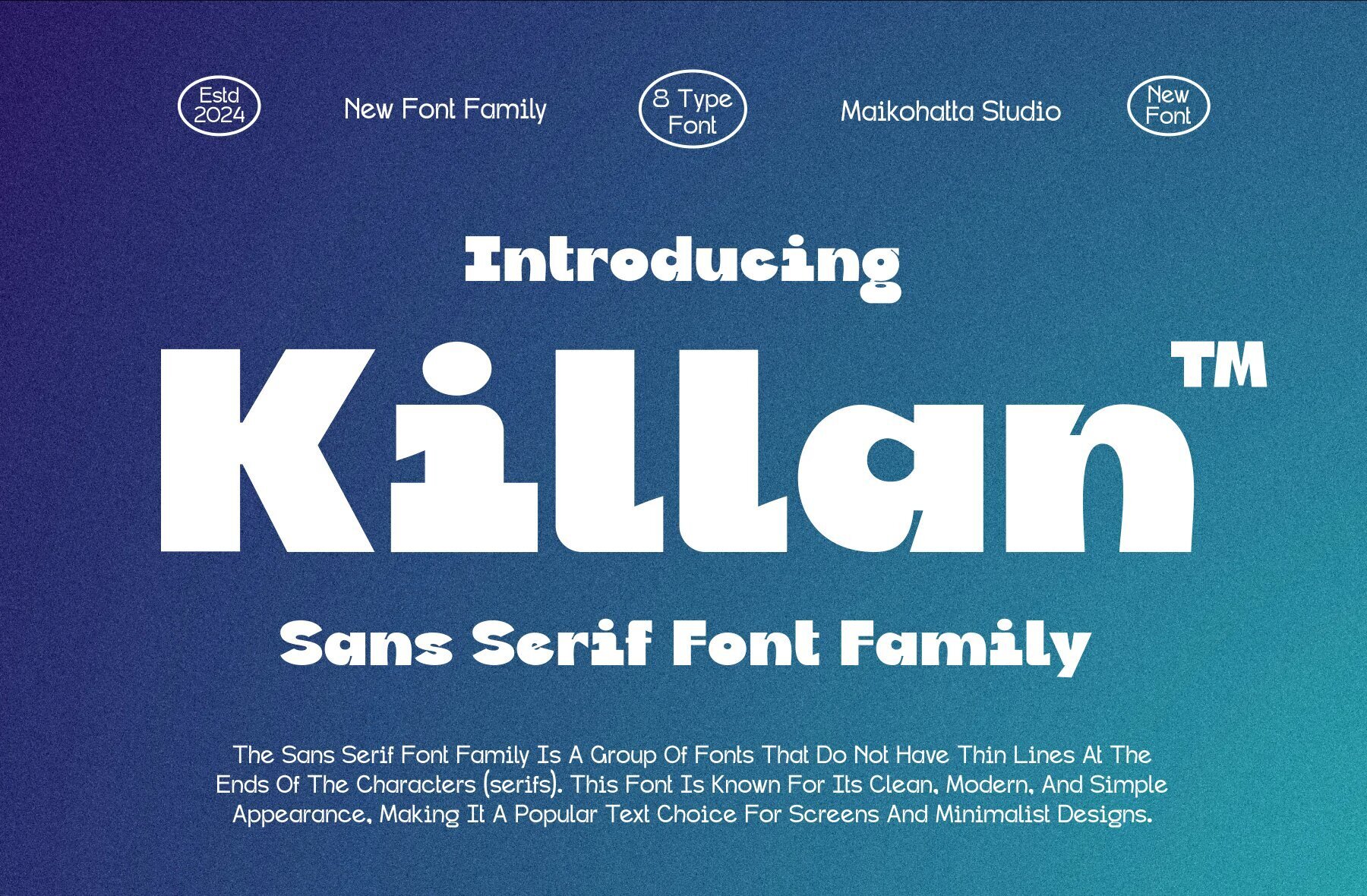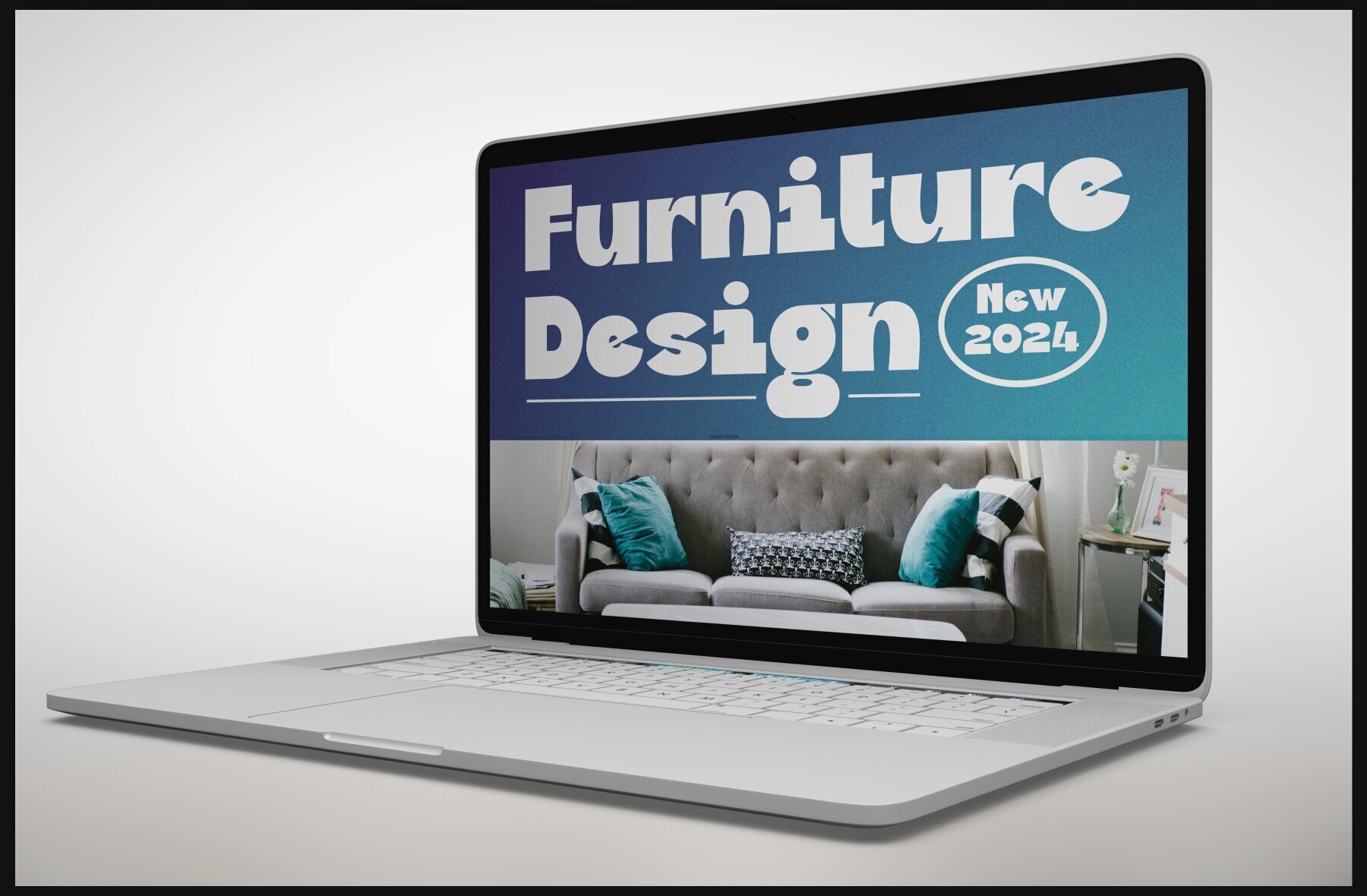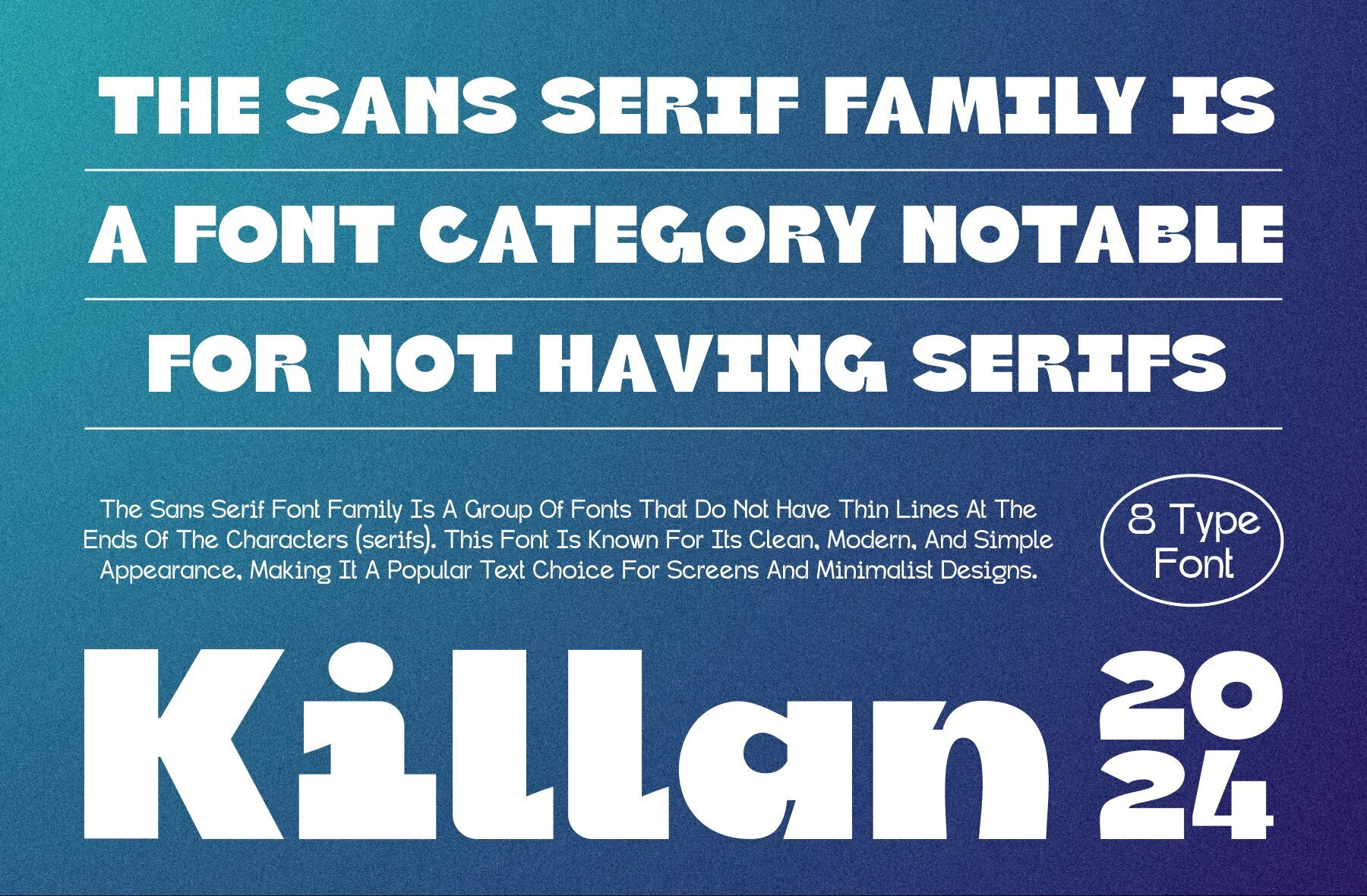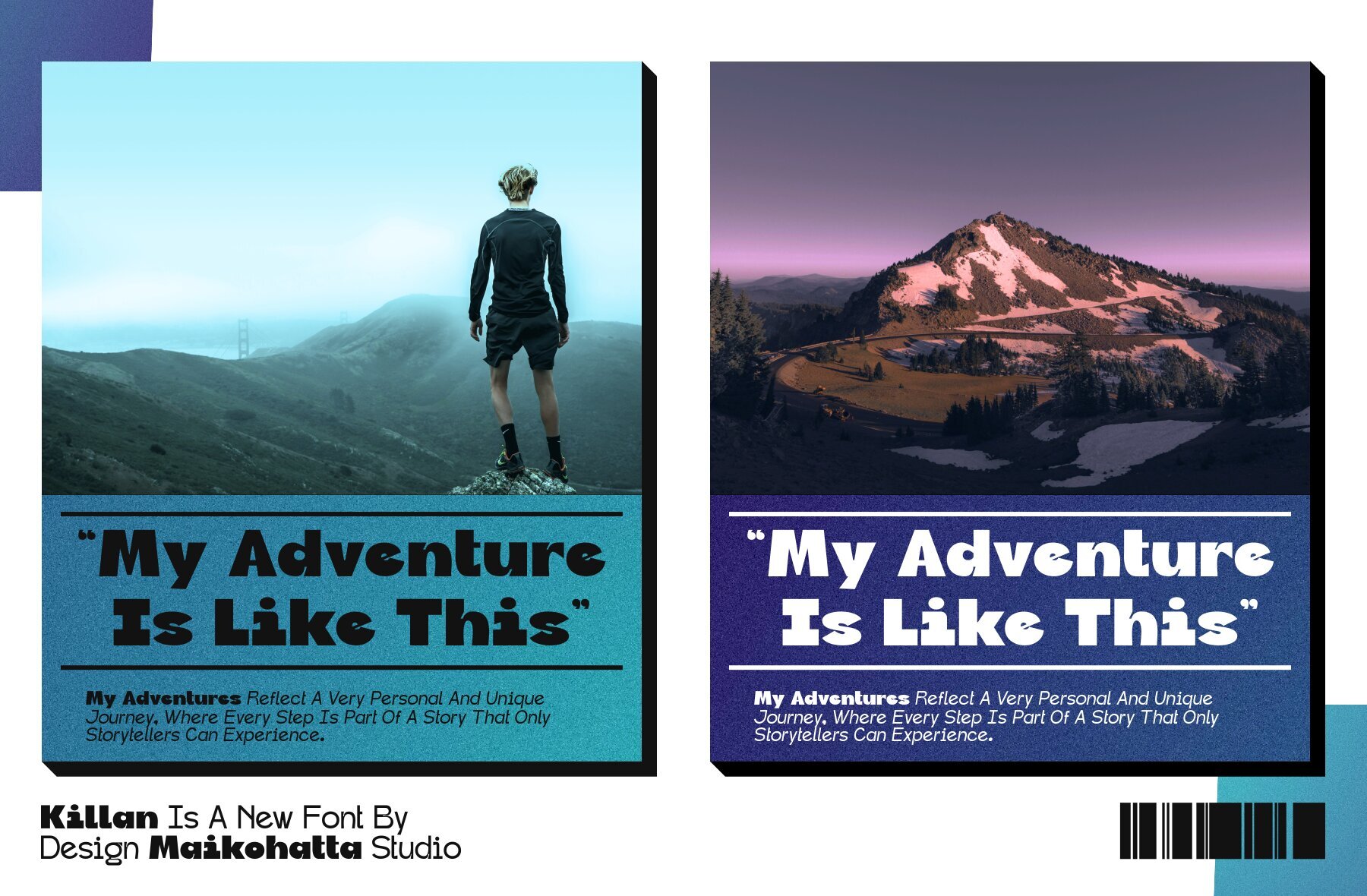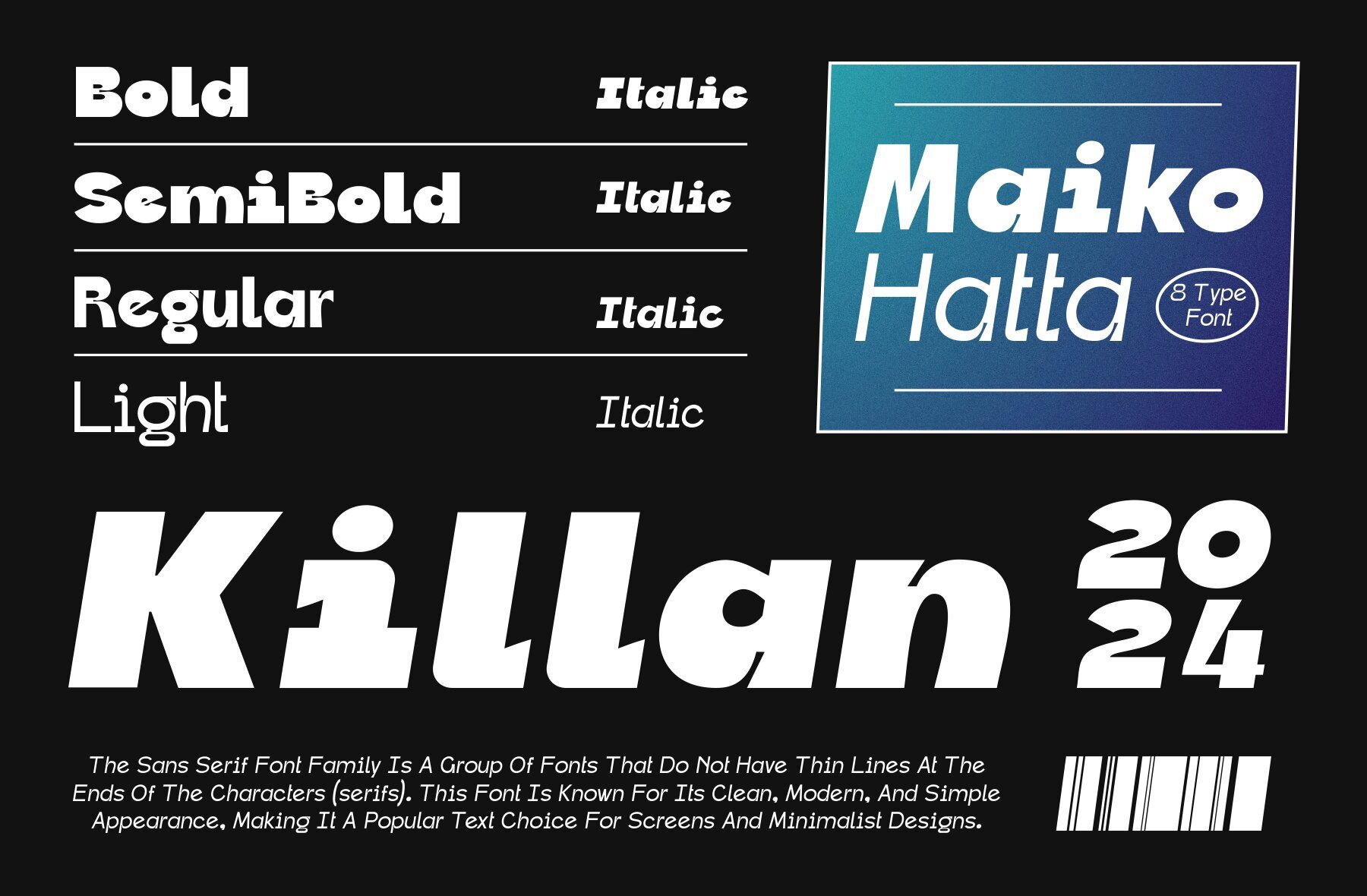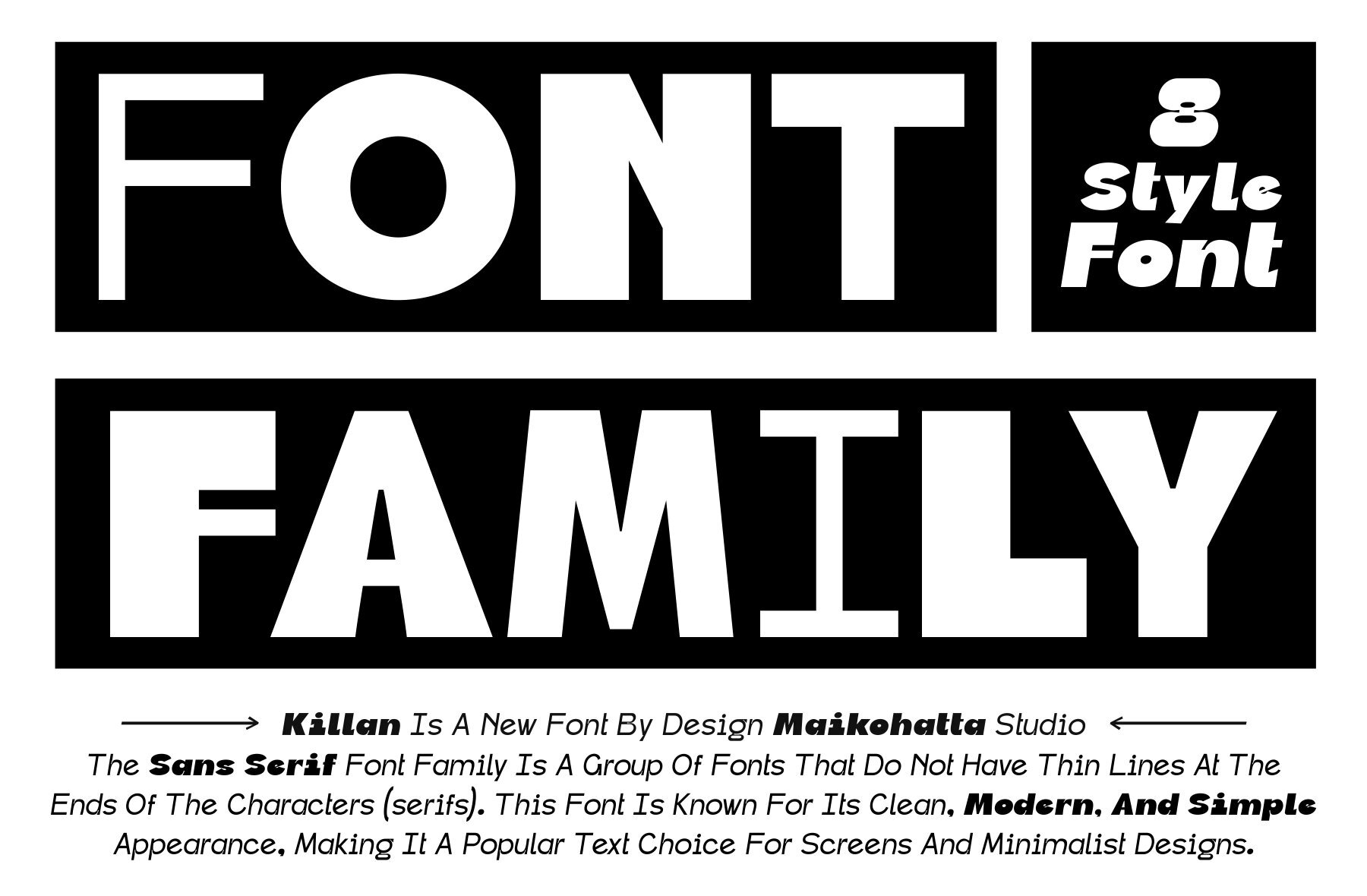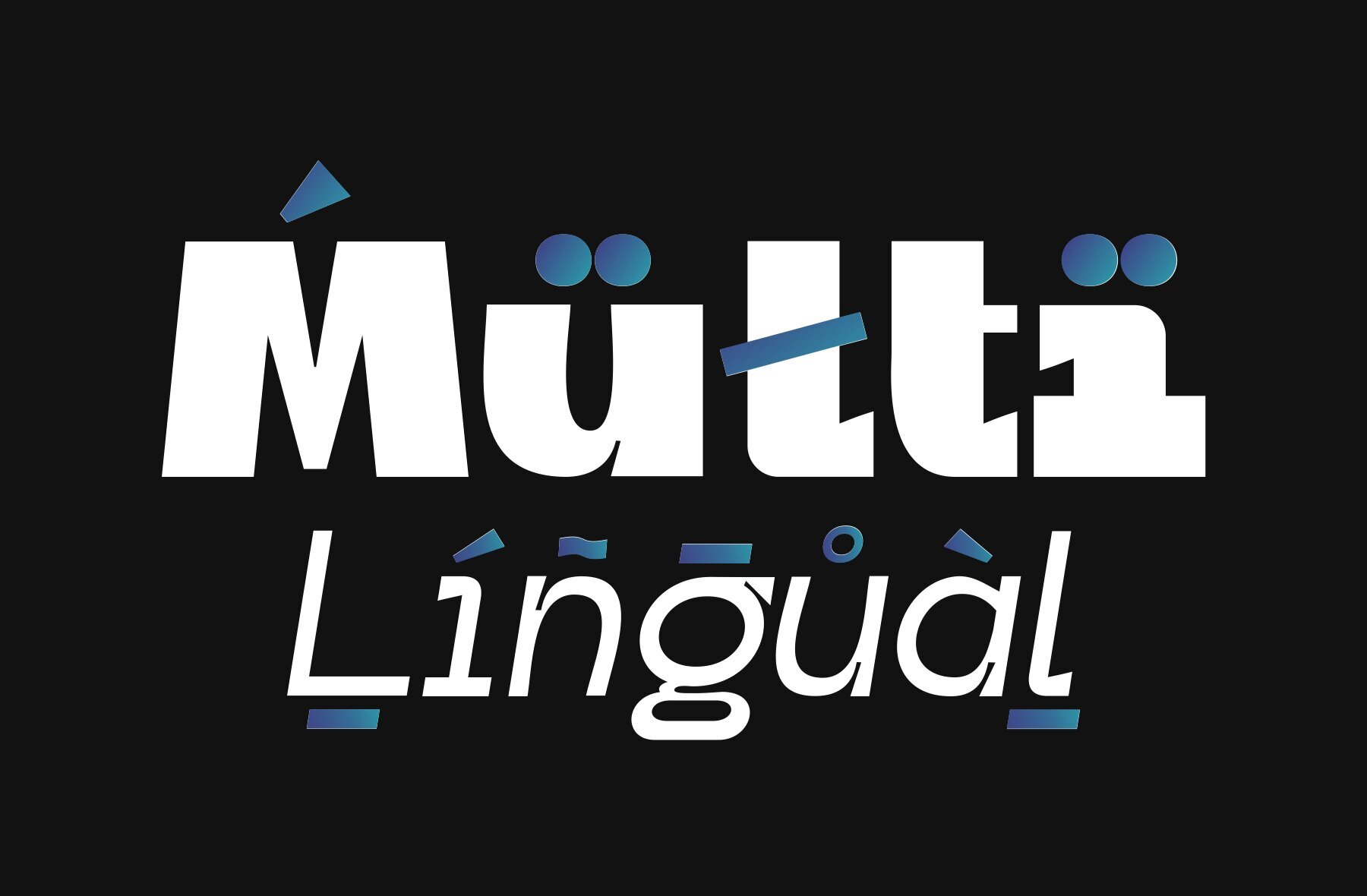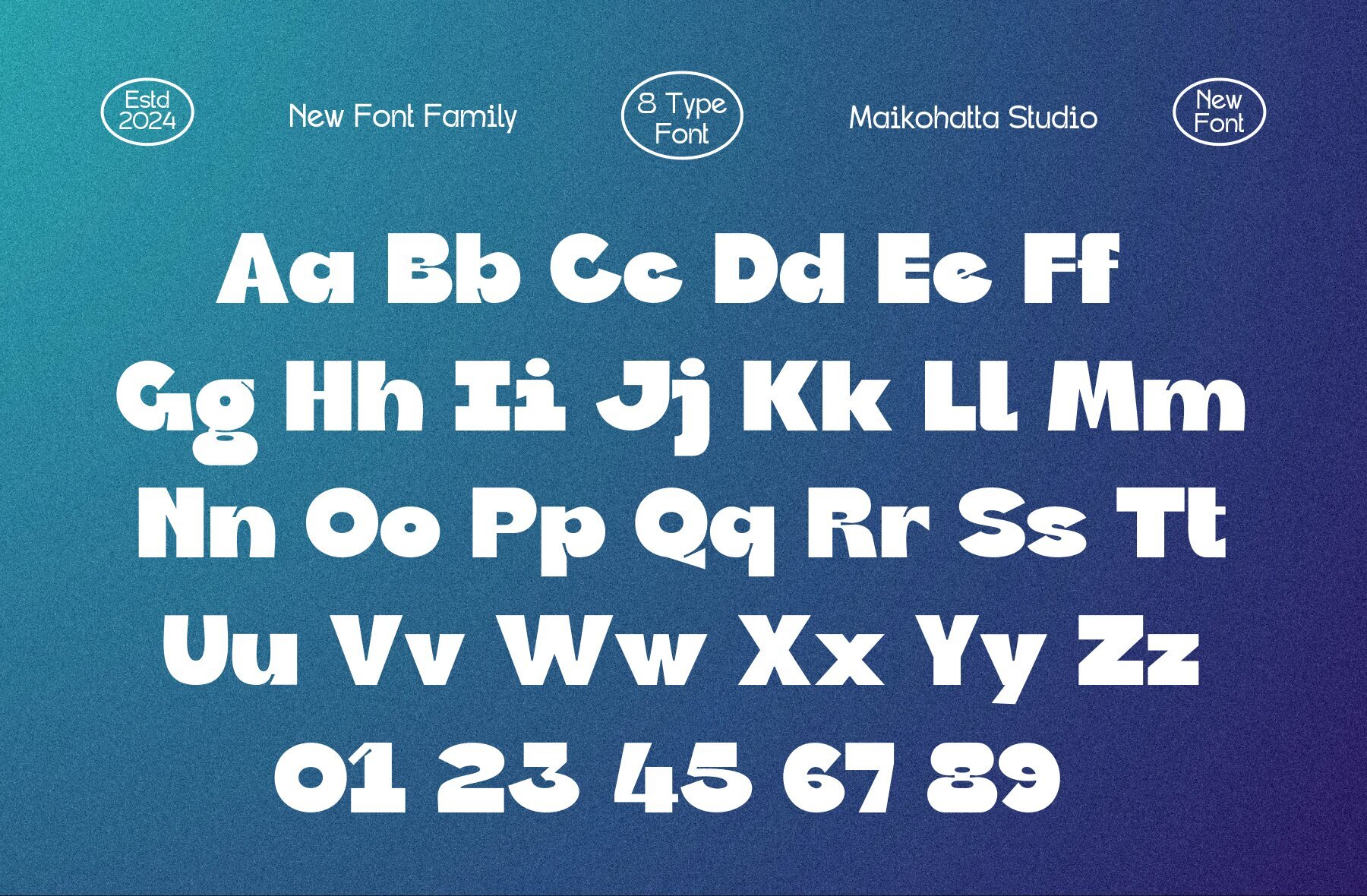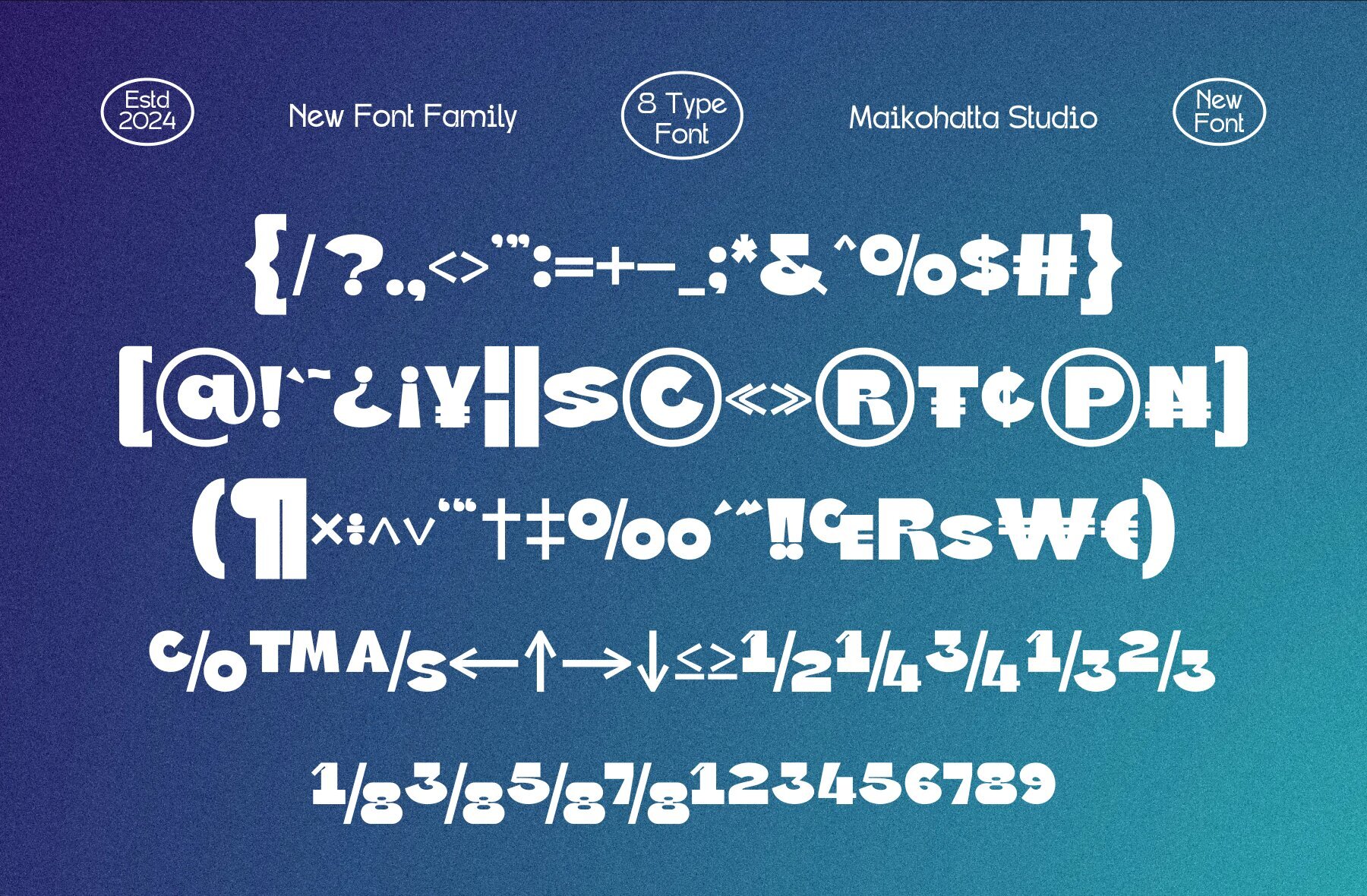
Killan Font
This bold and chunky stencil font is designed to make a statement. Its thick, blocky geometric shapes are perfect for eye-catching headlines, posters, and other display purposes. With its distinctive and creative appearance, this font adds a modern and artistic touch to your design projects.